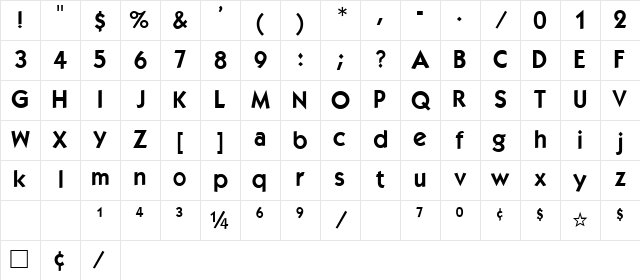
KabelBold Regular
Design Context for KabelBold
KabelBold is a composed and adaptable typeface that performs quietly and consistently across a wide range of design contexts. Its bold stroke weight gives it real presence on the page.